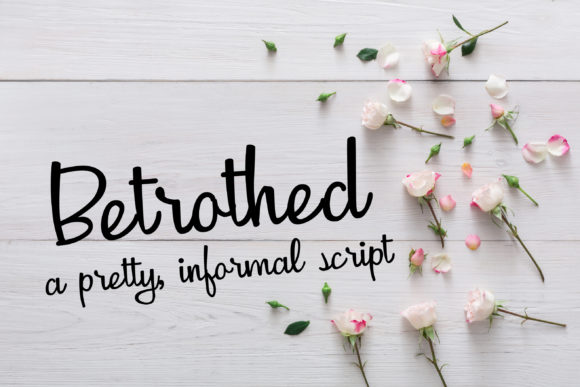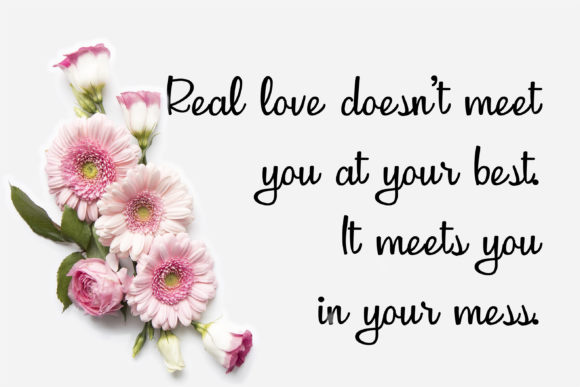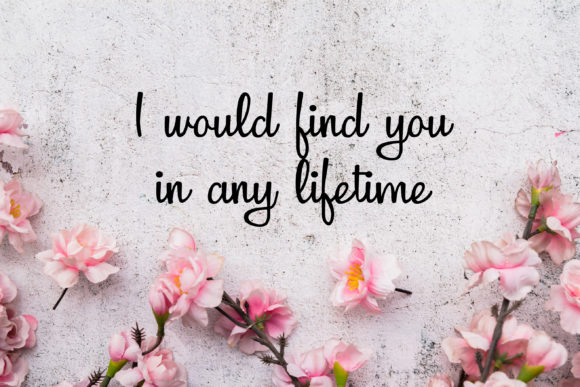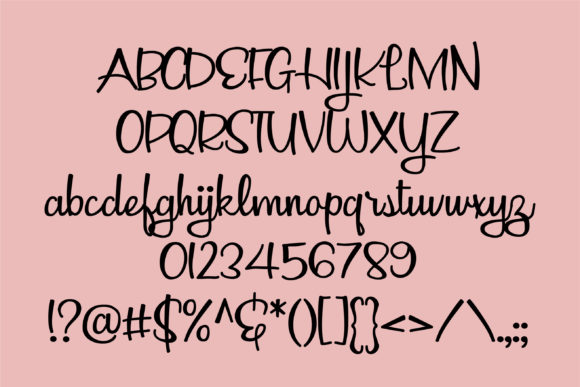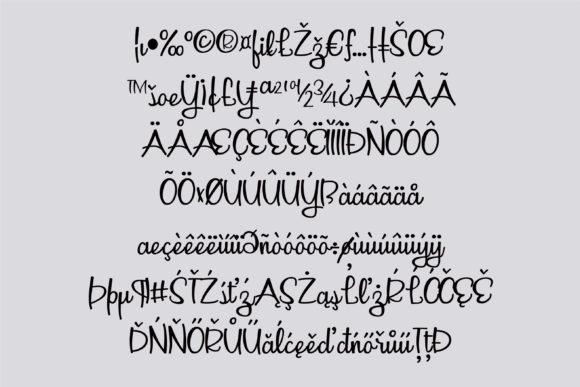
HomeScript FontsBetrothed Font Script Fonts Betrothed Font FacebookXPinterestWhatsApp Betrothed Font Poster 2 Betrothed Font Poster 3 Betrothed Font Poster 4 Betrothed Font Poster 5 About Betrothed Font This casual hand-crafted script has a medium weight and makes a great font for crafting, journaling and more. DOWNLOAD ON CREATIVE FABRICAThis font is sold and delivered by Creative Fabrica. Font Canyon may earn a commission if you buy through this link. People also explored Brusher Font Glazettio Font Lovely Arrow Monogram Font Intan Font Special Gift Font Sanrossi Sonata Duo Font Brush Crush Cumbre Simple House Font 275 0 TagsBetrothed Font Previous articleBellingham FontNext articleMaryland Family Font LEAVE A REPLY Cancel reply Comment: Please enter your comment! Name:* Please enter your name here Email:* You have entered an incorrect email address! Please enter your email address here Website: Save my name, email, and website in this browser for the next time I comment. Personal Use Free Tomatoes Personal Use Free Read more about this font Burnstown Dam Personal Use Free Read more about this font Sweet Cake Personal Use Free Read more about this font Nesto Copper 42 Font Personal Use Free Read more about this font BLOG Top 7 Google Fonts Alternatives for Faster and Privacy-Friendly Web Design (2025) Top 7 Google Fonts Alternatives for Faster and Privacy-Friendly Web Design (2025) When it comes to web typography, Google Fonts has long been the go-to... How to Cut Any Font on Cricut: Convert a Font to SVG (Free) Best Fonts for T-Shirt Design – Top 2025 Picks Transform Your Website: Elevate Your Typography with 7 Best Web Font Generators